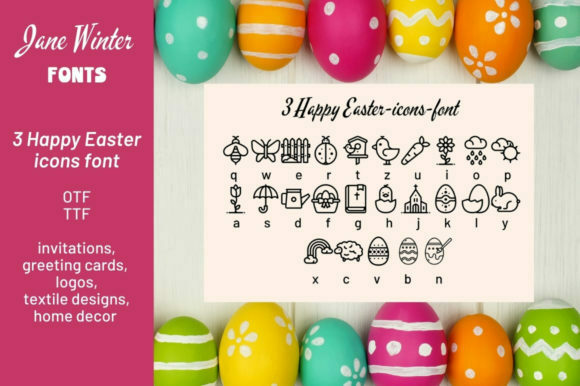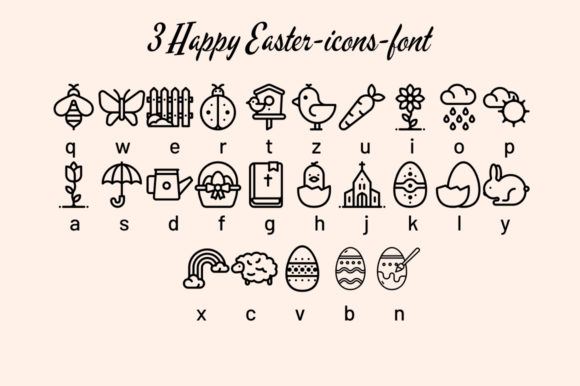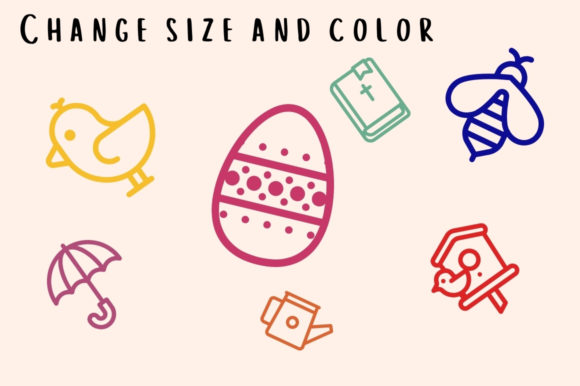
About Happy Easter Icons Font
“Happy Easter Icons” is a delightful dingbats font that features a collection of cute and festive icons related to the Easter holiday. With its charming Easter-themed symbols, this font is perfect for adding a touch of joy and celebration to your designs. Here are some creative ideas on how to make the most of the “Happy Easter Icons” font:
1. Easter Greeting Cards: Design eye-catching Easter greeting cards using the icons from the “Happy Easter Icons” font. Incorporate the Easter-themed symbols as decorative elements, borders, or patterns in your card designs. Combine different icons such as Easter eggs, bunnies, chicks, and flowers to create playful and delightful compositions that capture the spirit of the holiday.
2. Website or Blog Design: Give your website or blog a festive and inviting look by incorporating the “Happy Easter Icons” font. Use the icons as borders or dividers between sections, or add them as small accents throughout your content. The Easter-themed symbols will add a touch of charm and create a cohesive visual theme.
3. Easter Party Invitations: If you’re hosting an Easter-themed party, the “Happy Easter Icons” font is perfect for designing your invitations. Use the icons to create unique and captivating designs that reflect the joyful atmosphere of the celebration. Combine the Easter symbols with colorful backgrounds, playful typography, and fun patterns to make your invitations stand out.
4. Home Decor and Print-on-Demand (POD) Products: Add a festive touch to your home decor items or print-on-demand products using the “Happy Easter Icons” font. Incorporate the icons as decorative elements on throw pillows, mugs, tote bags, or wall art. Create patterns or designs with the Easter symbols to bring a cheerful and whimsical vibe to your products.
5. Social Media Graphics: Engage your audience on social media with captivating Easter-themed graphics. Use the icons from the “Happy Easter Icons” font to create visually appealing posts, stories, or cover images. Whether you’re sharing Easter recipes, crafts, or simply spreading holiday cheer, these icons will help make your social media presence more festive and inviting.
Remember to play around with different colors, sizes, and combinations of icons to create unique and outstanding designs. Additionally, consider combining the “Happy Easter Icons” font with complementary fonts and graphic elements to enhance your overall design aesthetic.
In summary, “Happy Easter Icons” is a cute dingbats font with an Easter holiday theme that allows you to add a touch of joy and celebration to your designs. Whether you’re creating Easter greeting cards, designing websites or blogs, sending invitations, creating home decor items, or sharing social media graphics, this font will help you create outstanding designs that capture the spirit of the holiday. Enjoy exploring the various Easter symbols and let your creativity shine!